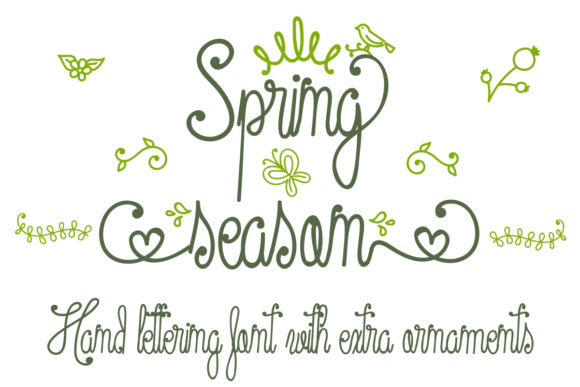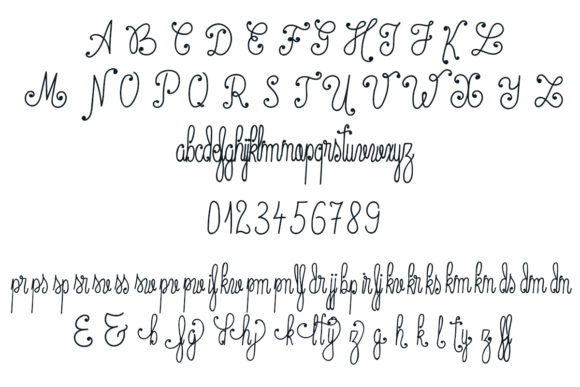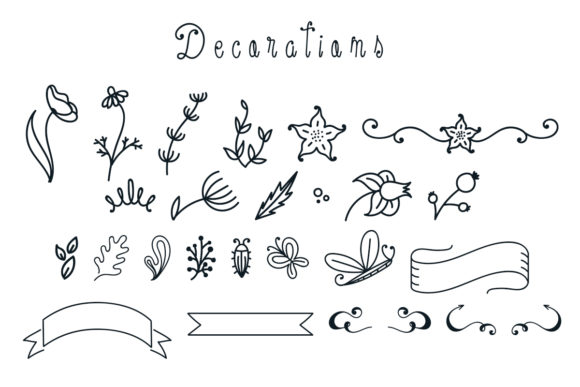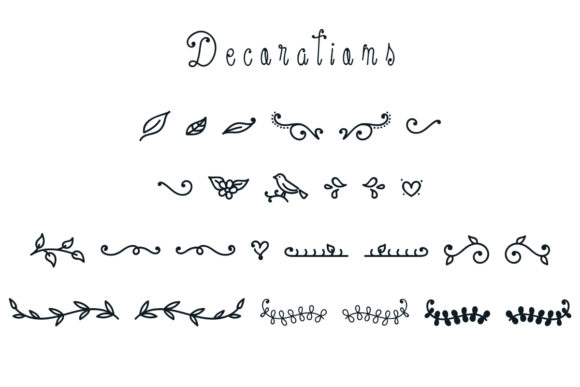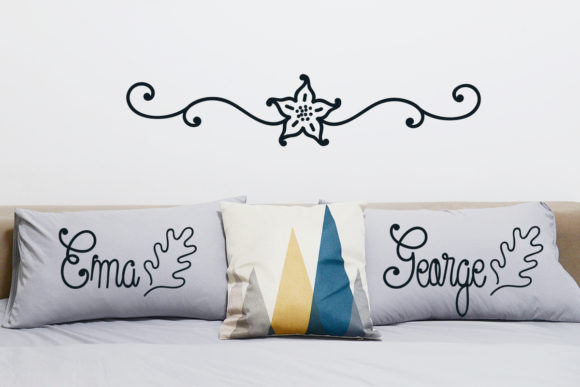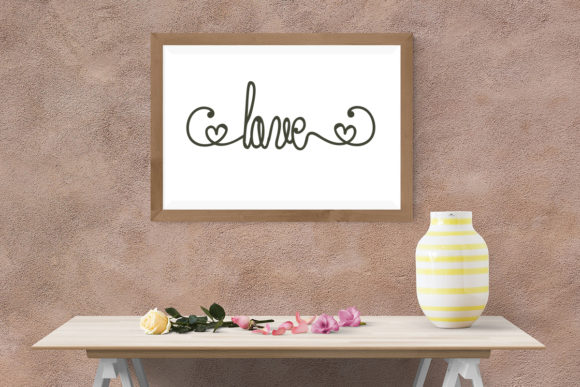
Spring Season Font
About Spring Season Font
The Spring Season is an amazing monoline font. It has a beautiful hand lettered style with a condensed, elegant, and feminine touch.